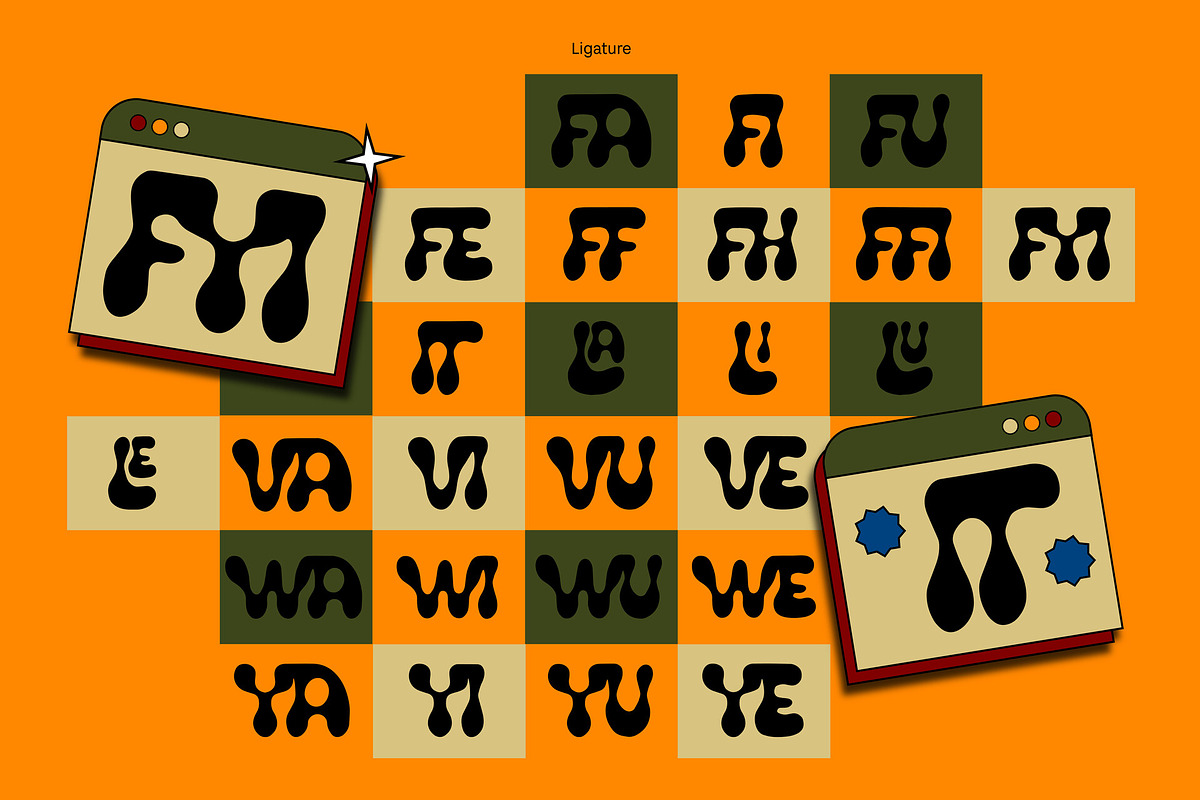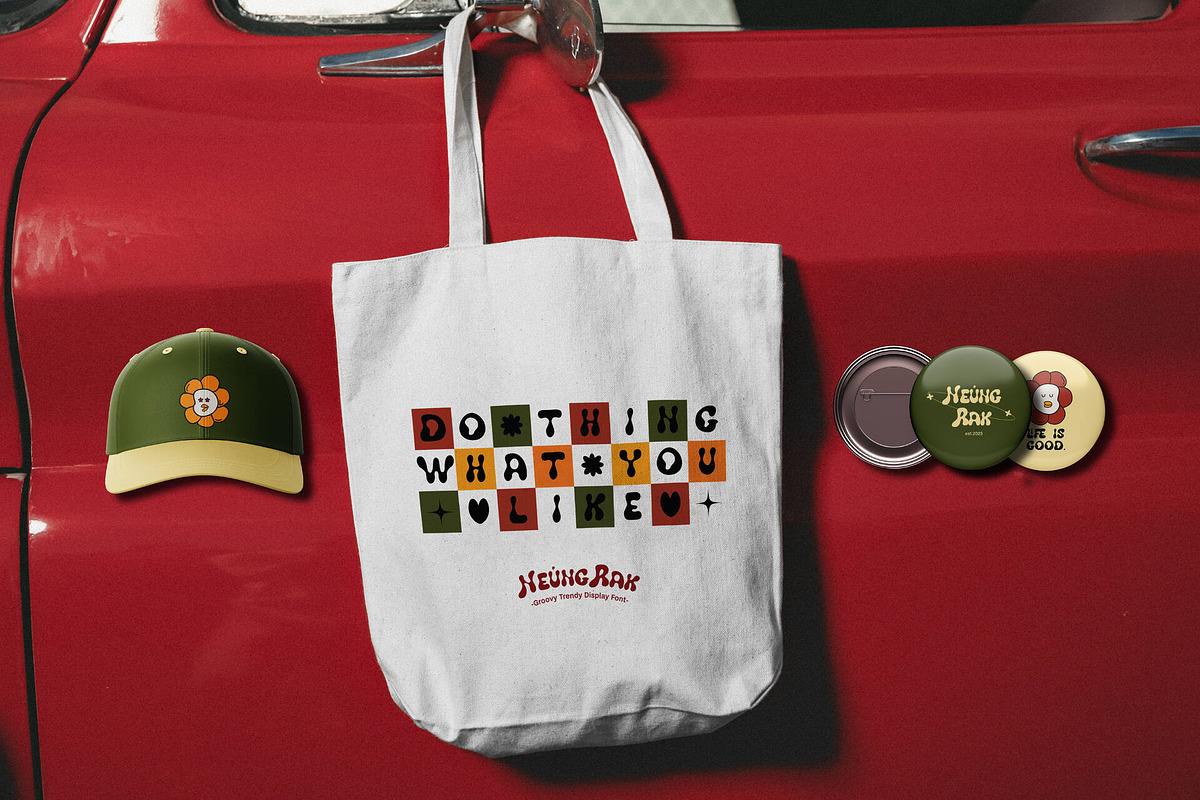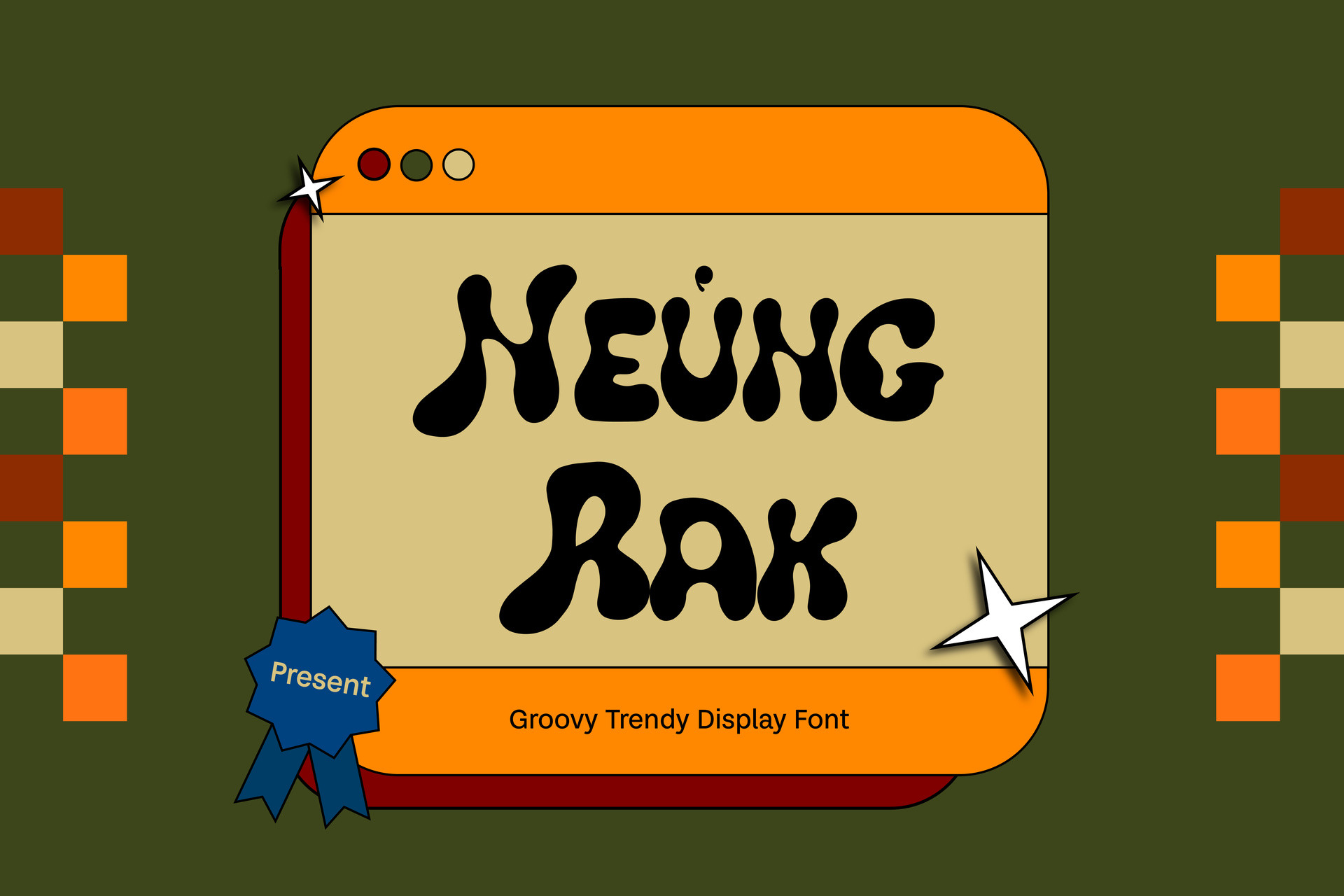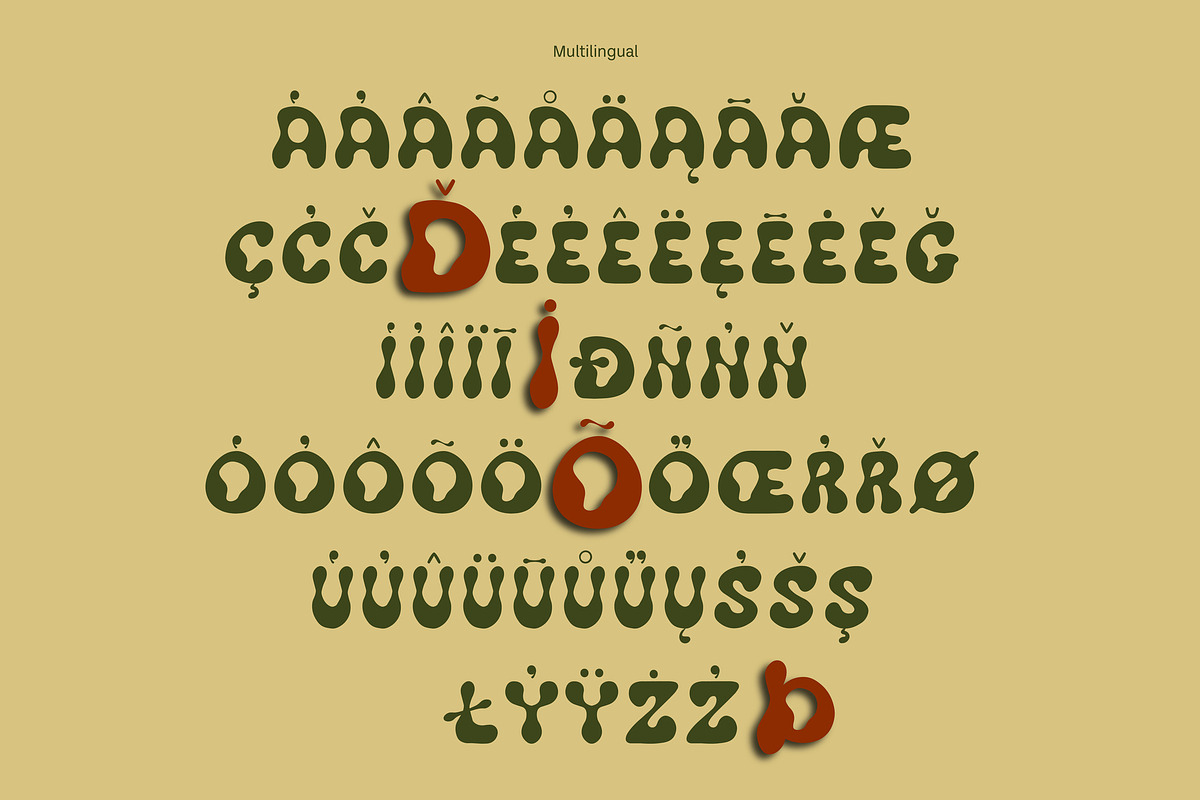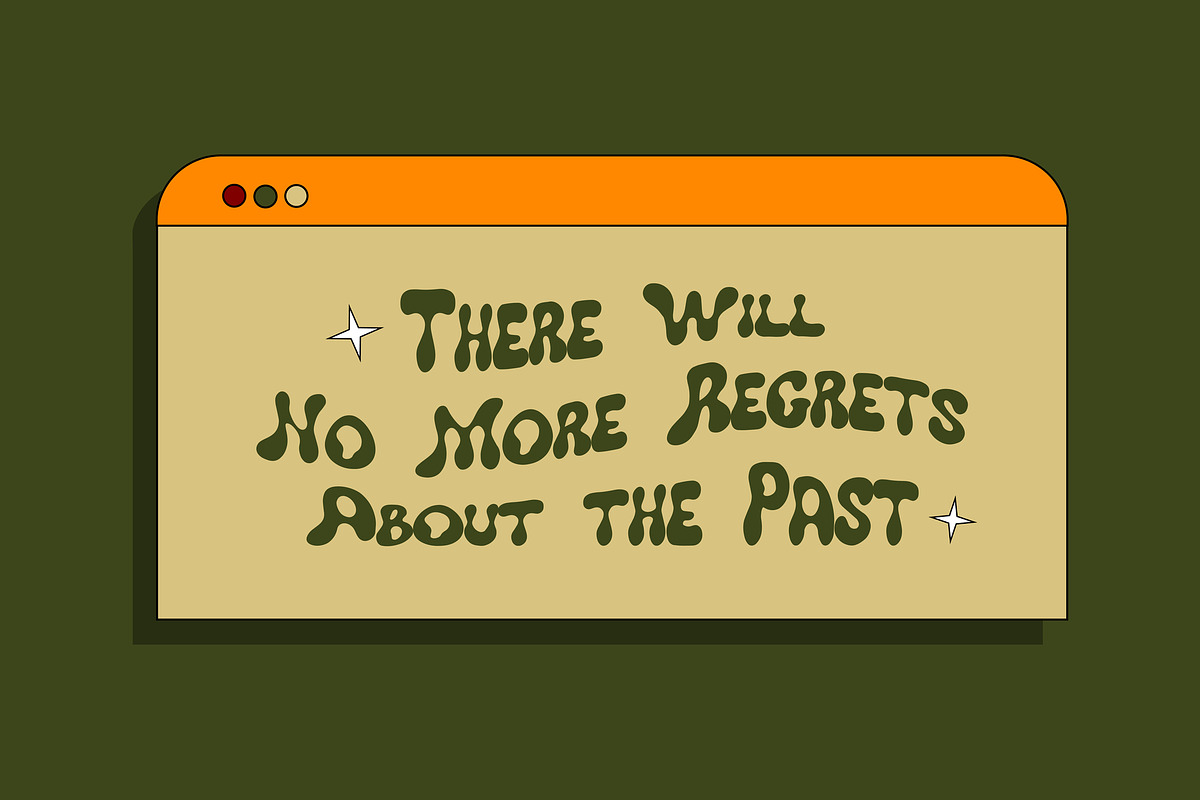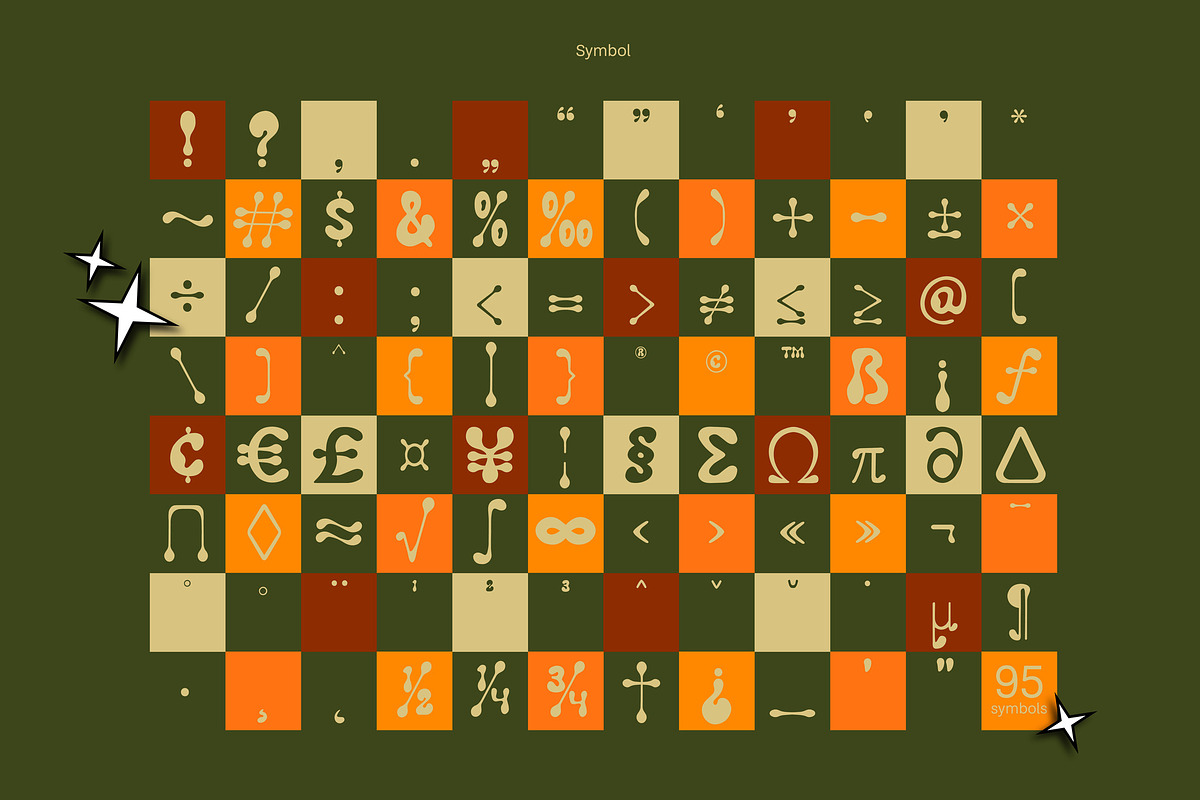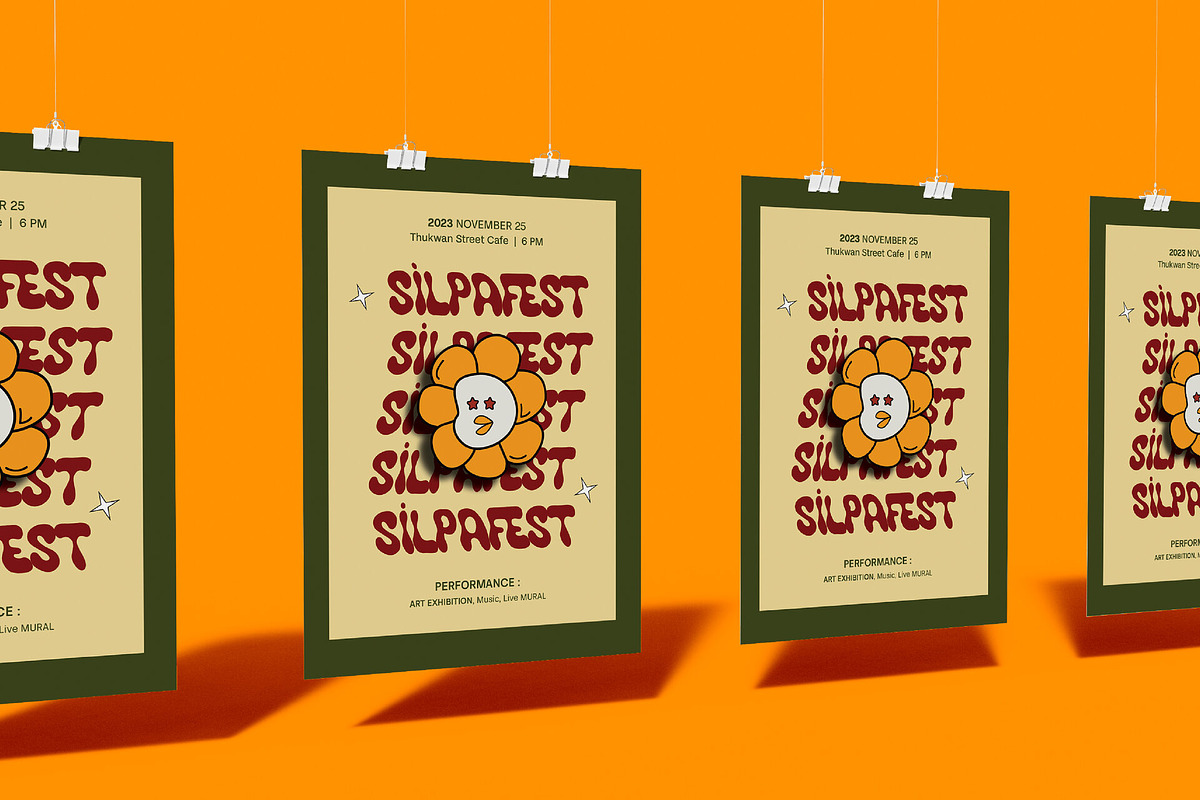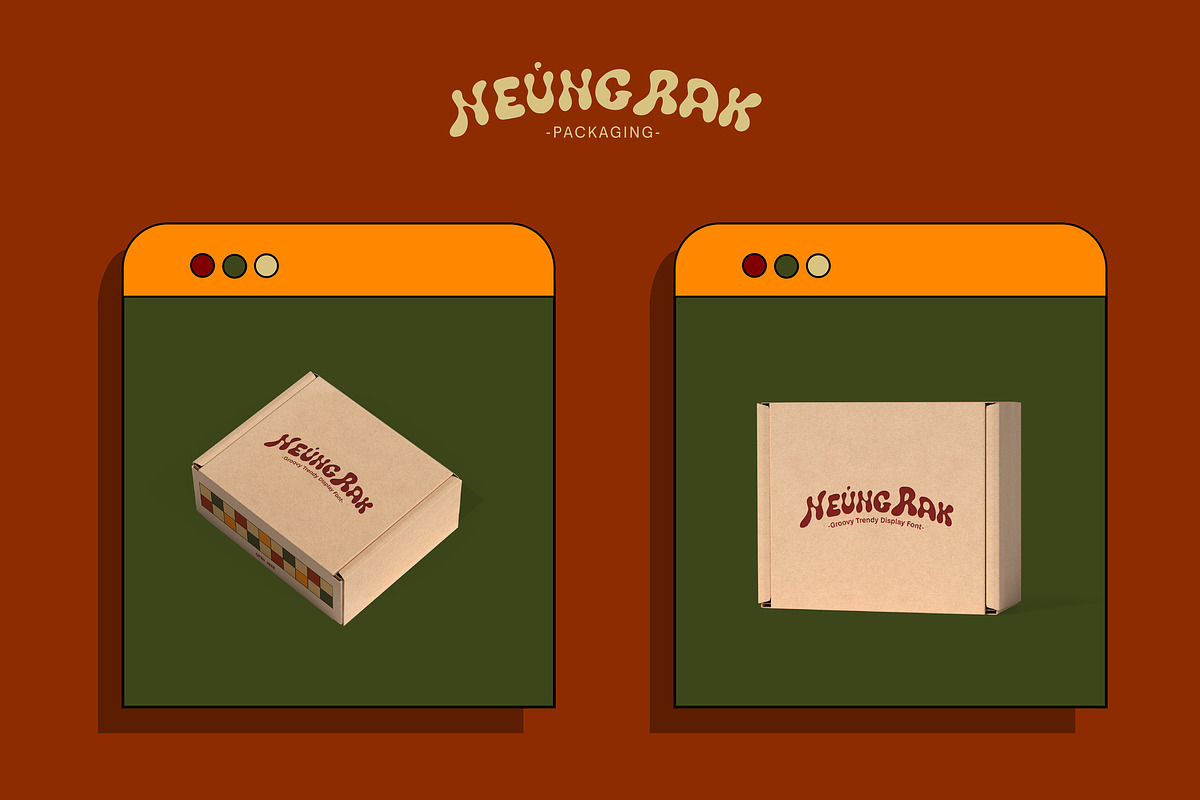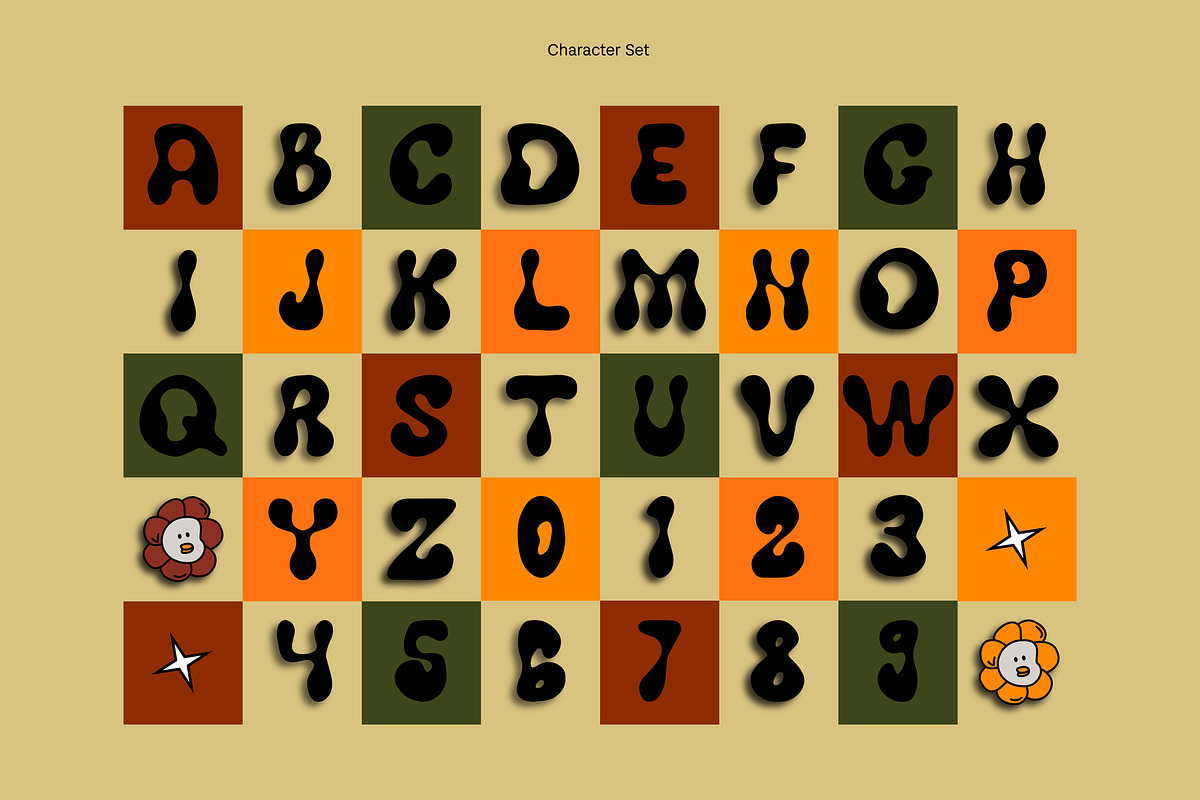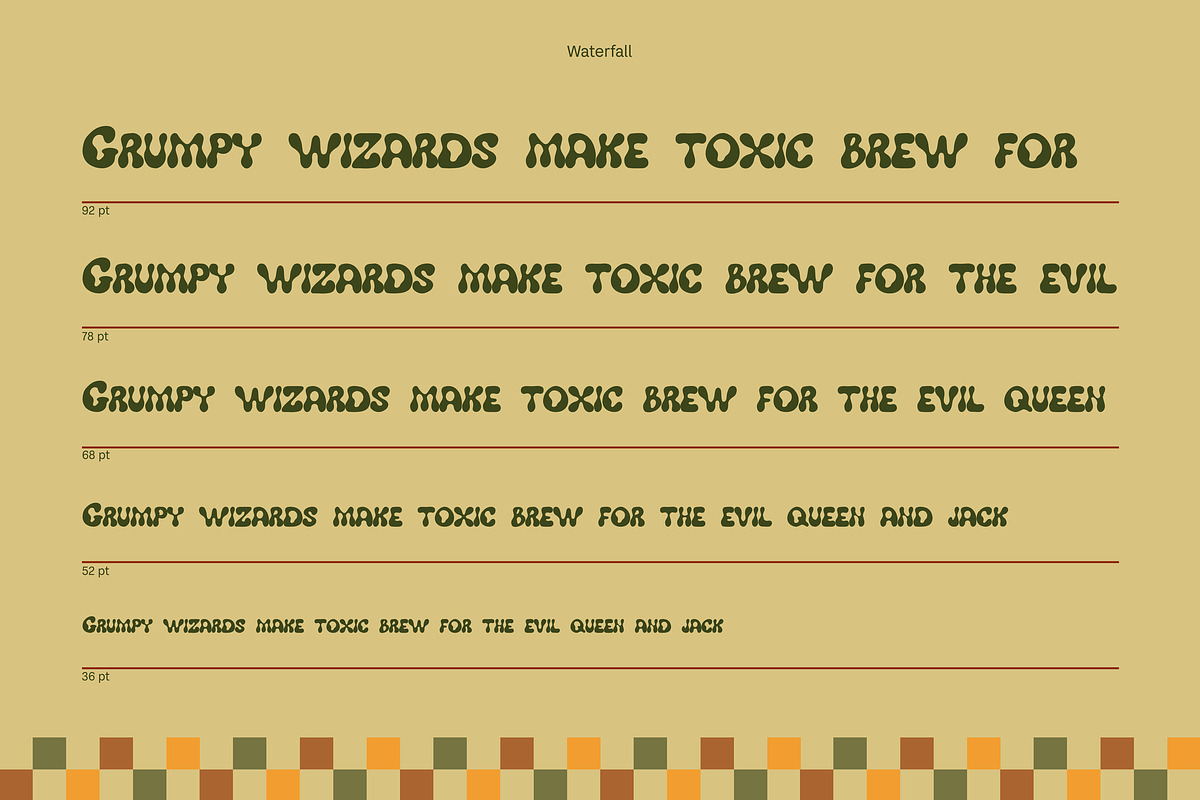
Neung Rak Display Typeface
Explore the captivating 'Neung Rak,' a stylish and groovy display typeface with a unique clothing concept. This font seamlessly marries bold and dynamic letterforms with a trendy aesthetic, creating a visual style that is both eye-catching and fashion-forward. 'Neung Rak' draws inspiration from the spirit of retro and contemporary fashion trends, utilizing warm colors and distinctive plaid styles to evoke a sense of individual expression. Elevate your creative projects with the font's distinct and fashionable charm.
As an exclusive bonus, 'Neung Rak' includes a complimentary sticker design, adding an extra layer of creativity to your projects. Whether you're seeking a touch of nostalgia or a modern flair, this font and its accompanying sticker design are tailored to enhance your design journey.